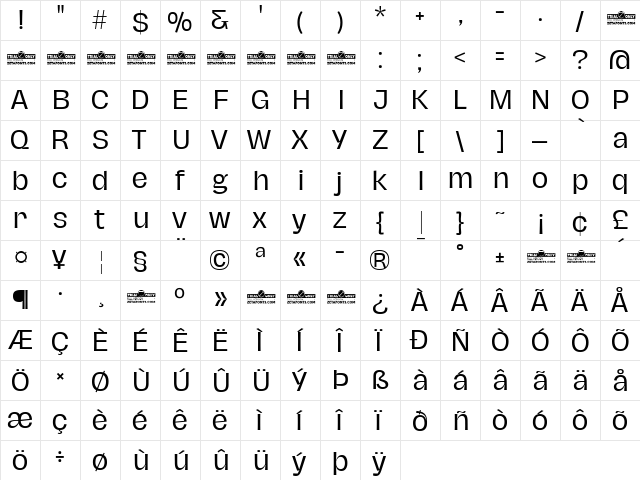
Hagrid Trial Regular
| Foundry | Cosimo Lorenzo Pancini |
| Designer | Cosimo Lorenzo Pancini |
Design Context for Hagrid Trial Typeface
Hagrid Trial offers clean, dependable letterforms without strong stylistic allegiance, making it a practical choice for designers who need flexibility.